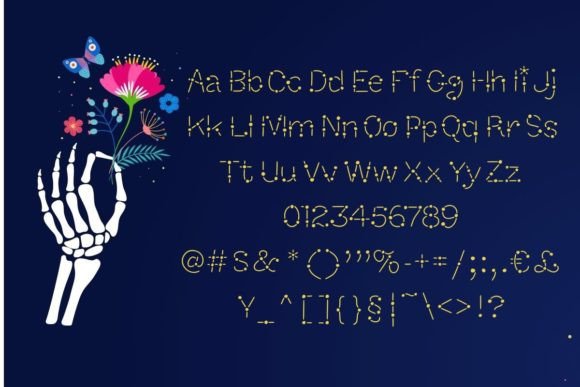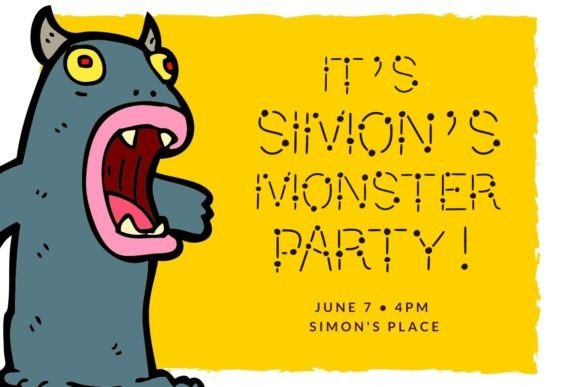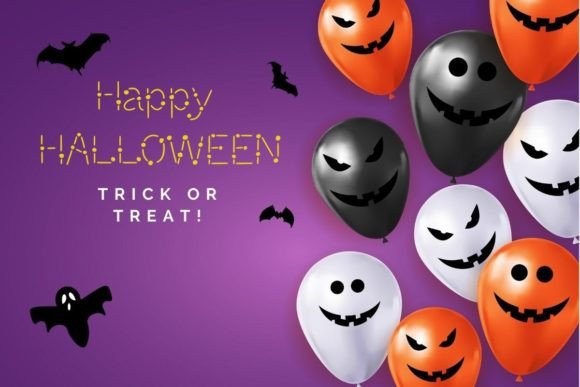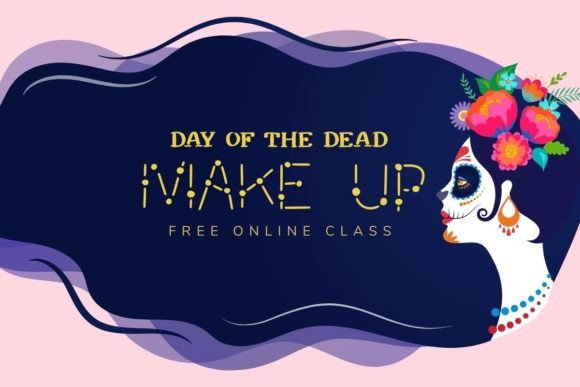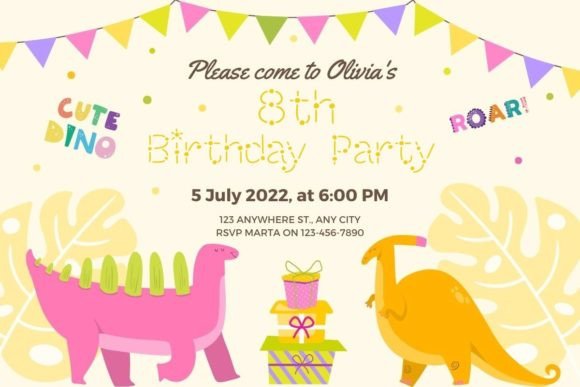
Introduction to Halloween Bone Font Font
Fonts play a crucial role in design, and the Halloween Bone Font font is a typeface that brings both character and versatility to any project. Whether you’re working on a branding project, a website, or a print design, the Halloween Bone Font font offers a unique style that can elevate your work.
Halloween Bone is a decorative font suitable for logos, branding, wedding invitations, business cards, greeting cards, posters, magazines, social media, planner prints, and websites.
It is especially useful for childrenβs designs, t-shirts, mugs, posters, and more Add this font to your favorite creative ideas, and notice how it makes them come alive.
Key Features of Halloween Bone Font Font
Why Choose Halloween Bone Font Font?
The Halloween Bone Font font is more than just a typeface β it’s a design tool that helps you communicate your message with style and clarity. Its unique character set and versatile design make it suitable for a wide range of applications, from elegant invitations to bold headlines.
With its carefully crafted letterforms and balanced proportions, the Halloween Bone Font font ensures readability and visual appeal across all mediums.
What makes Halloween Bone Font font special?
The Halloween Bone Font font stands out with its unique design, exceptional readability, and versatility across various design applications.